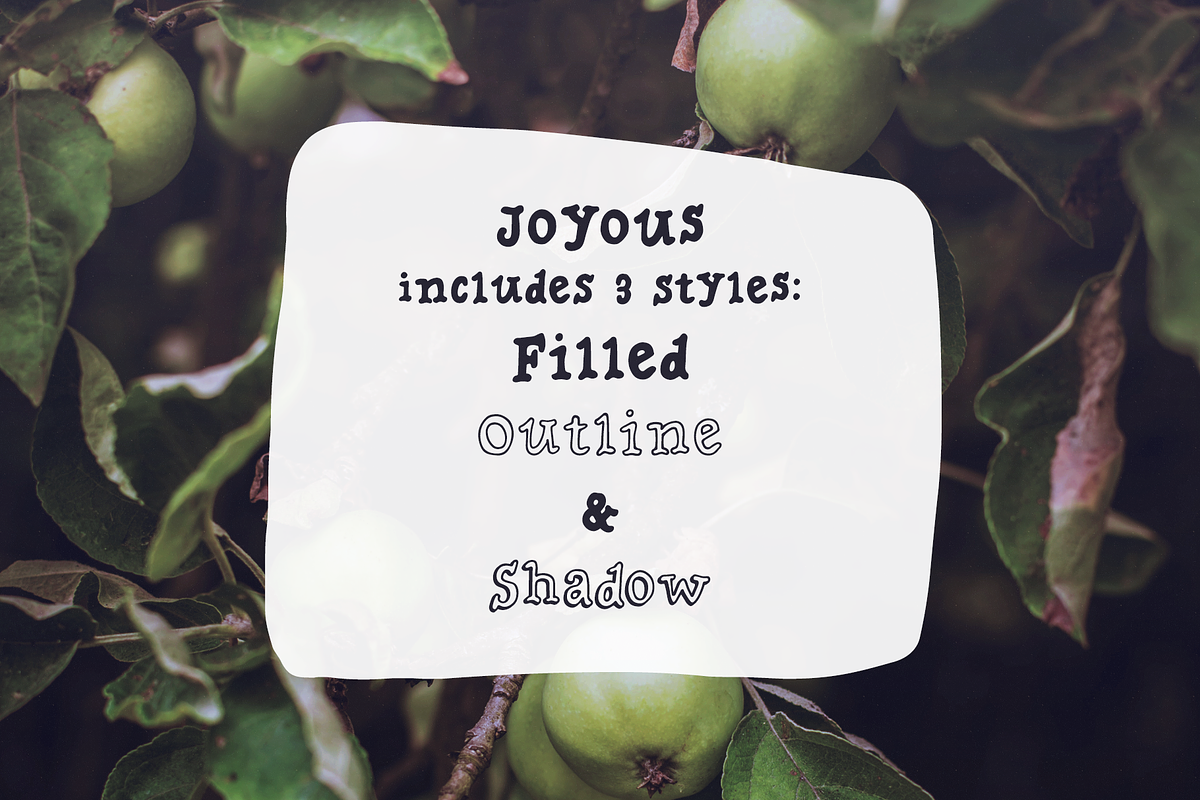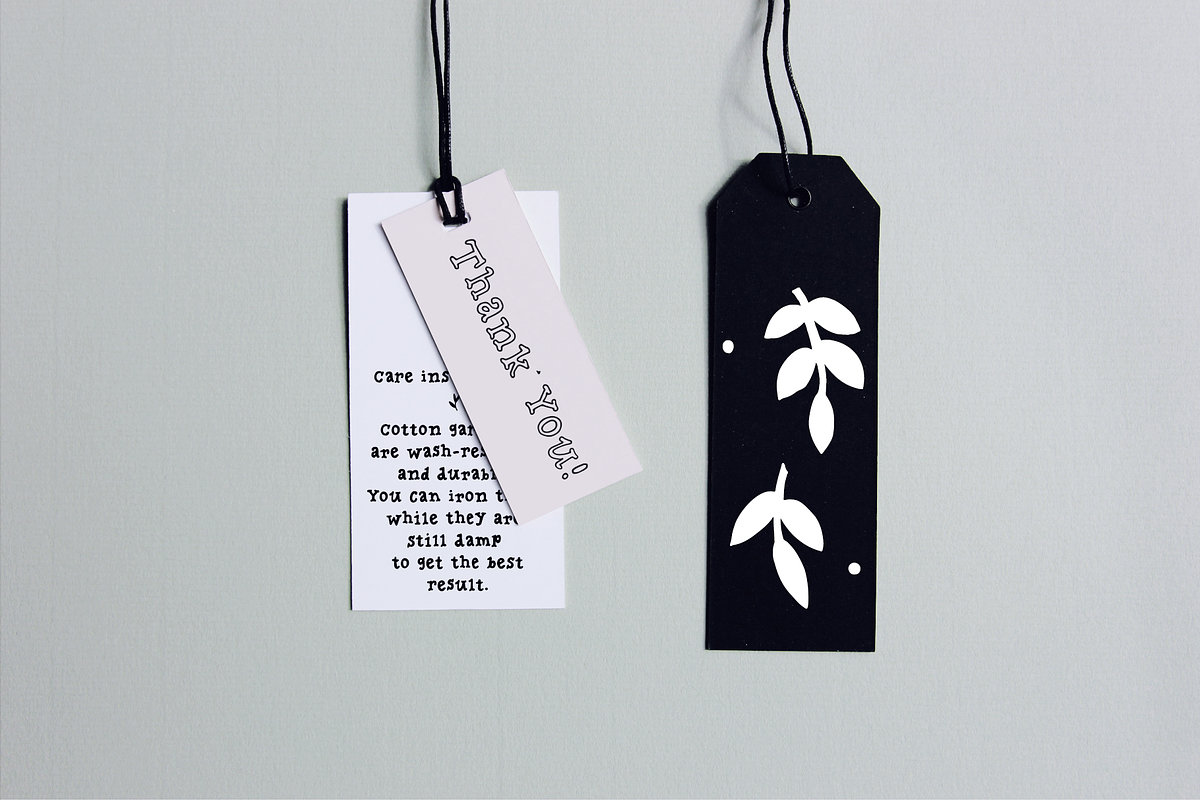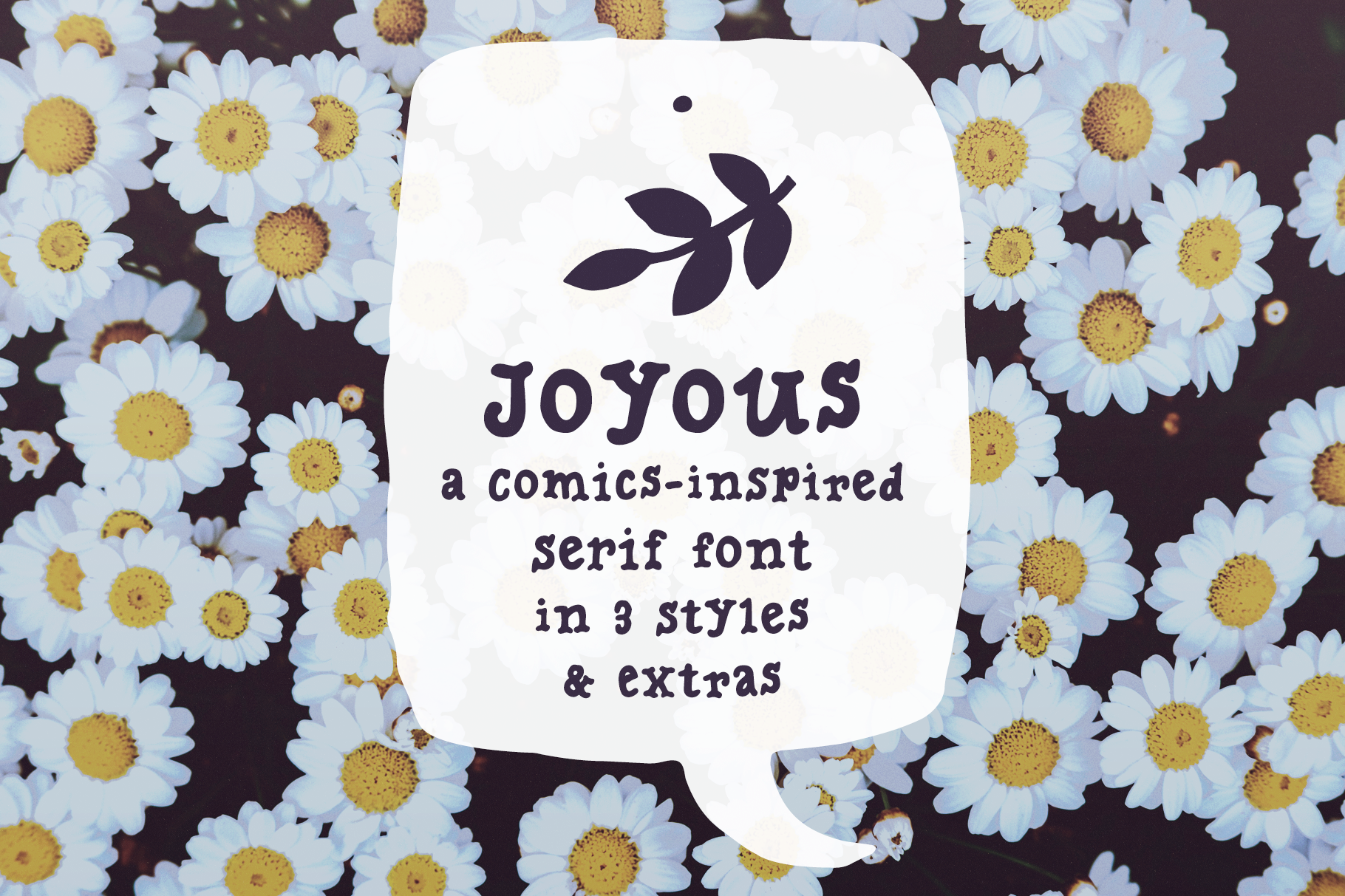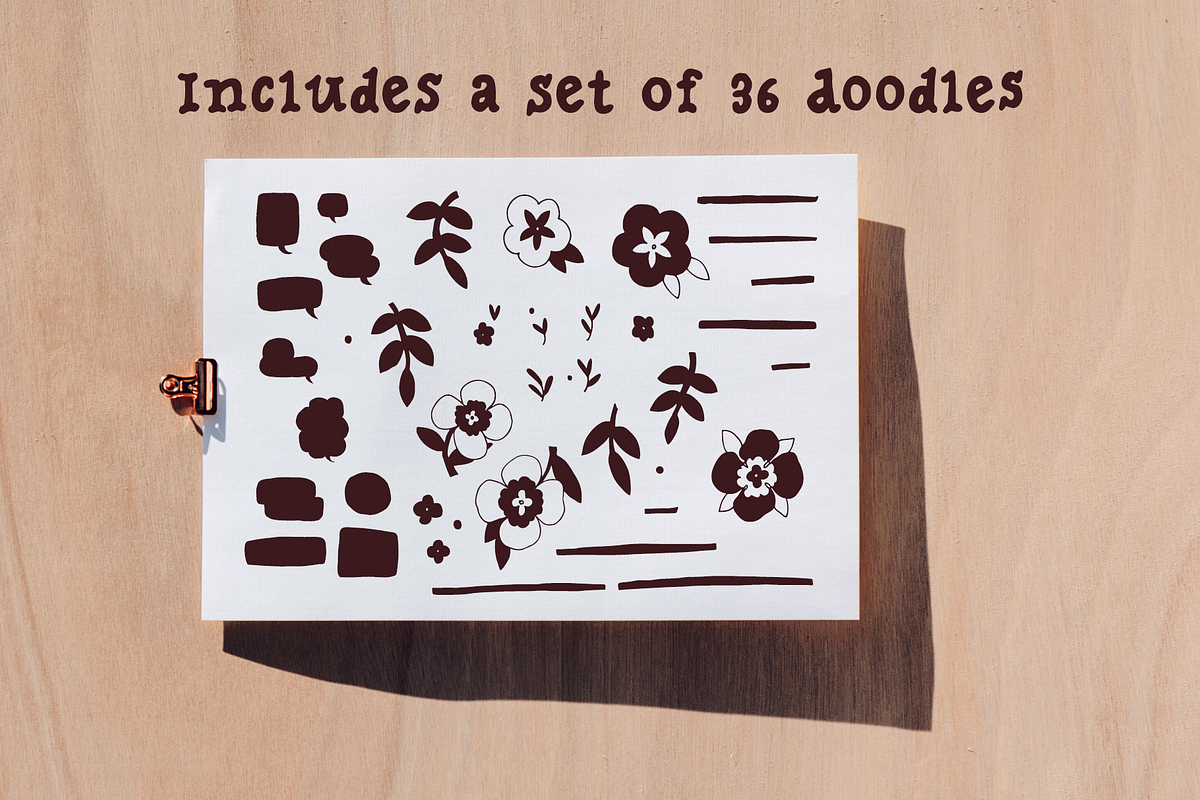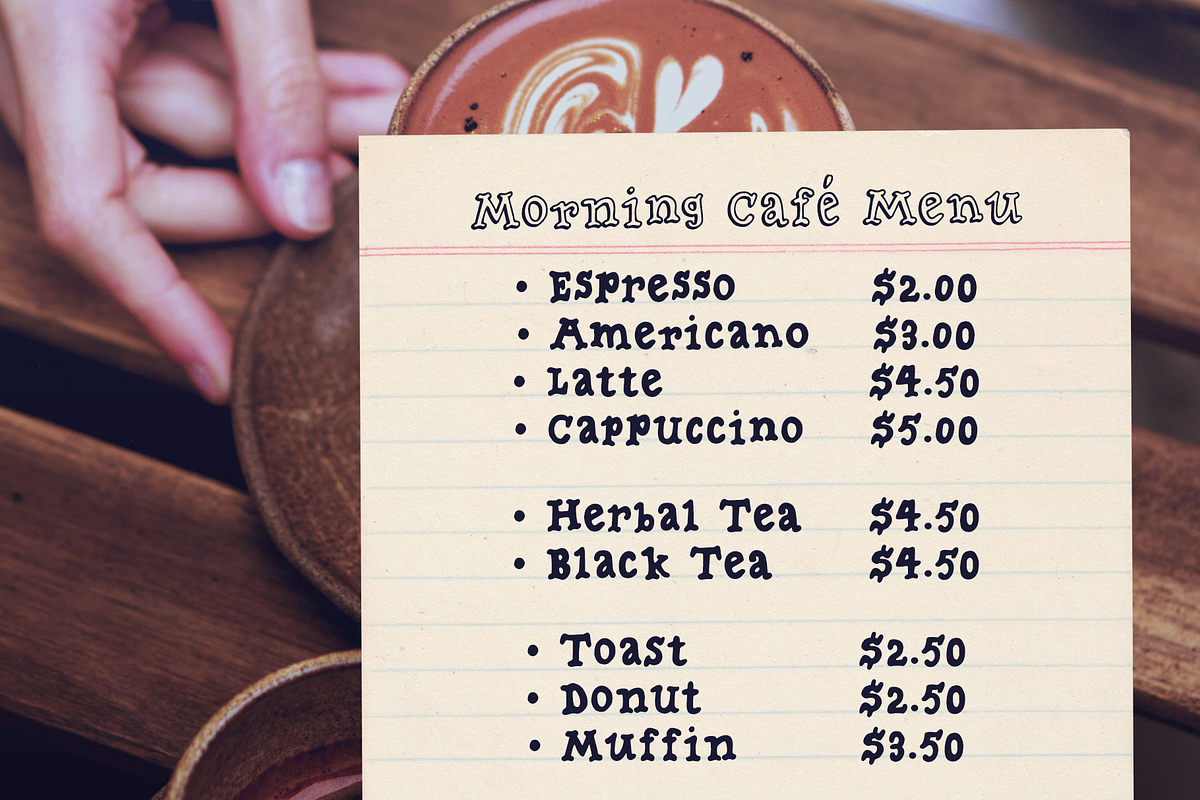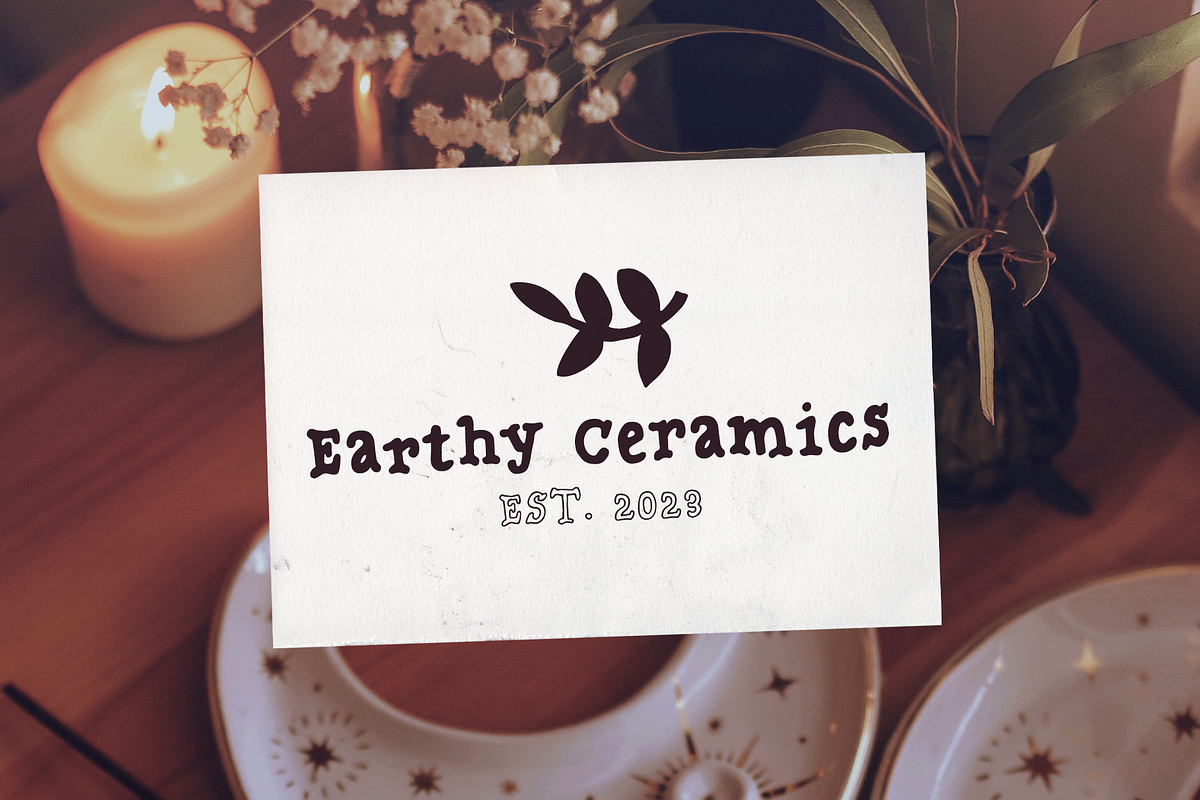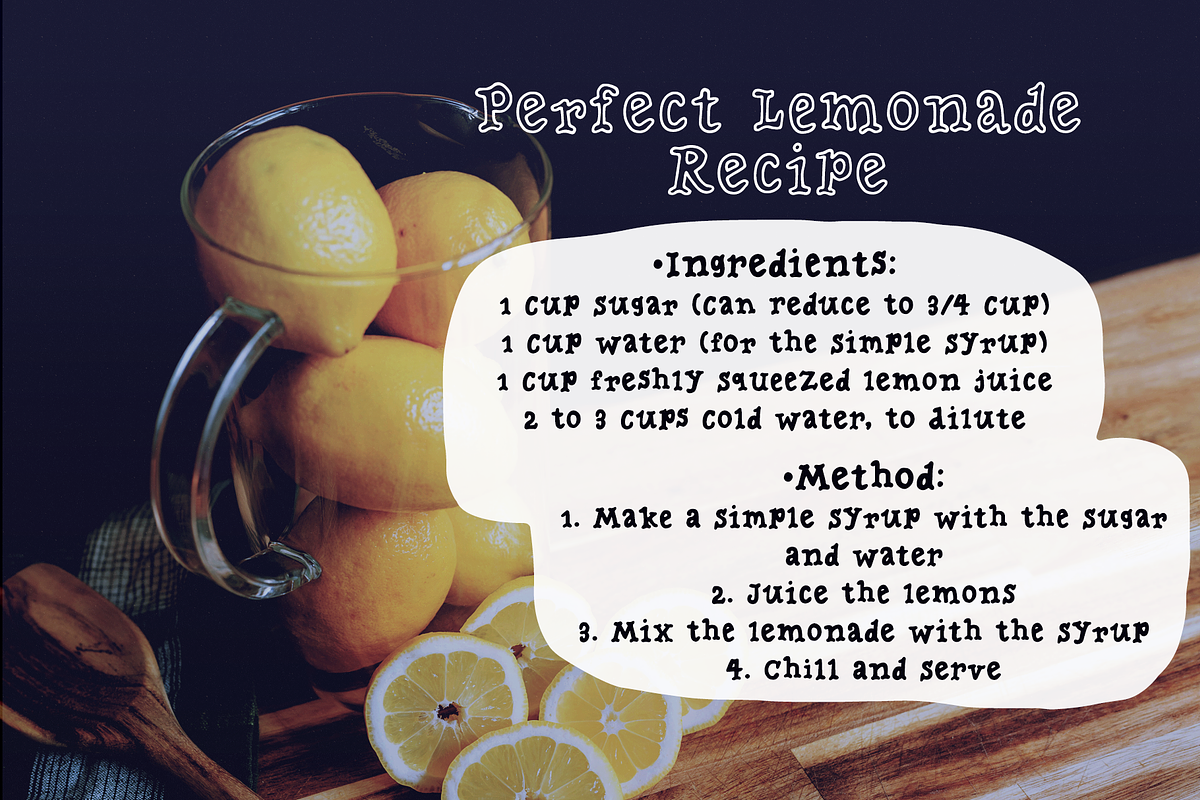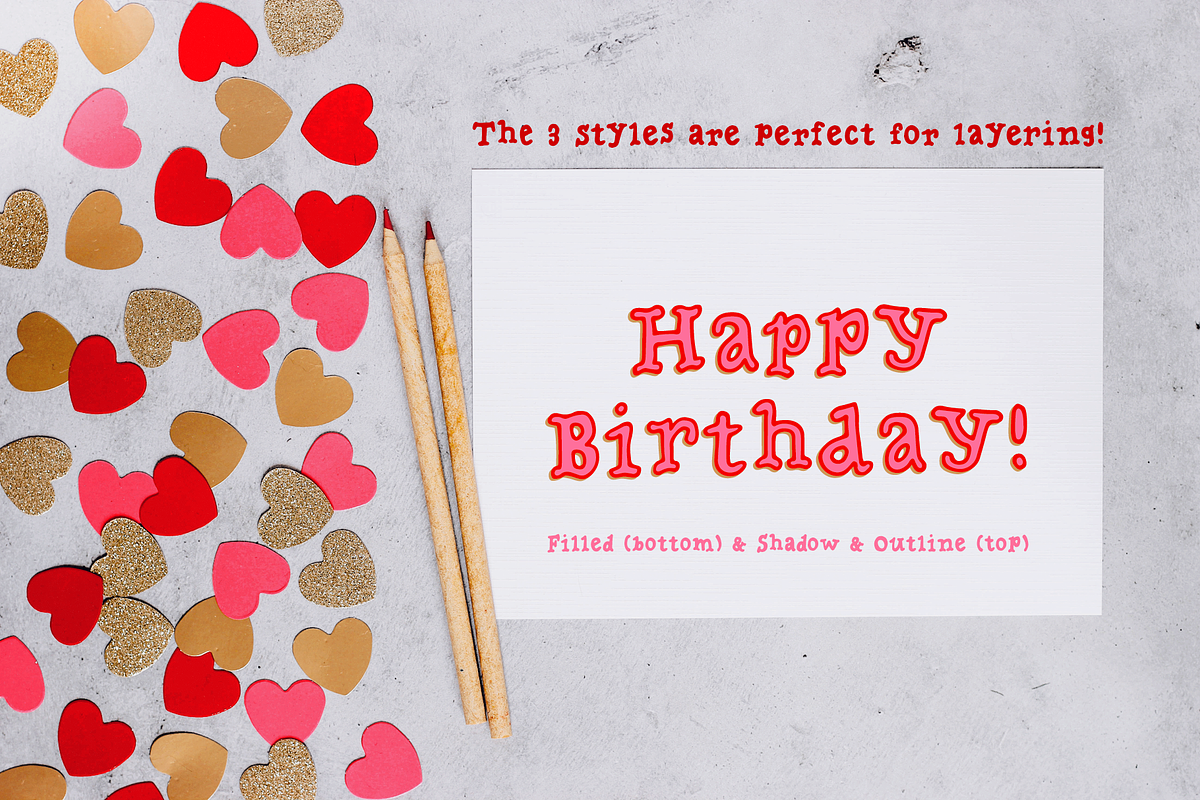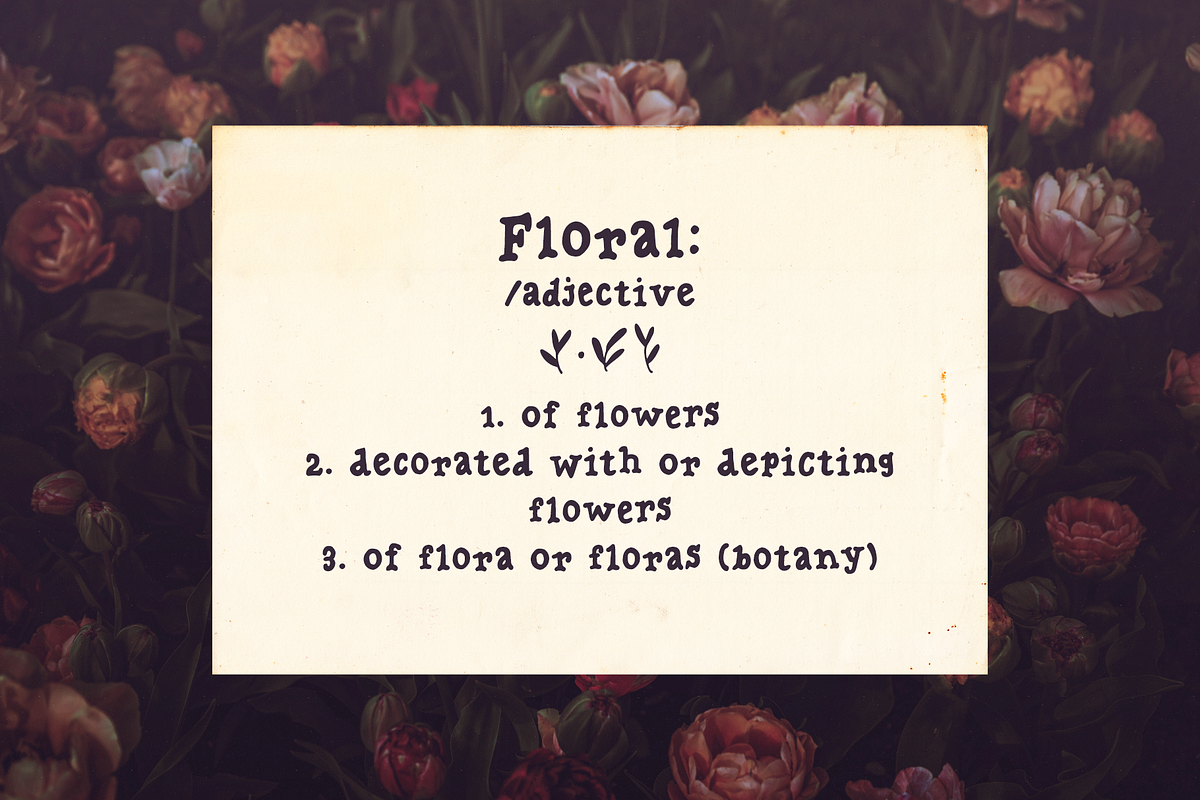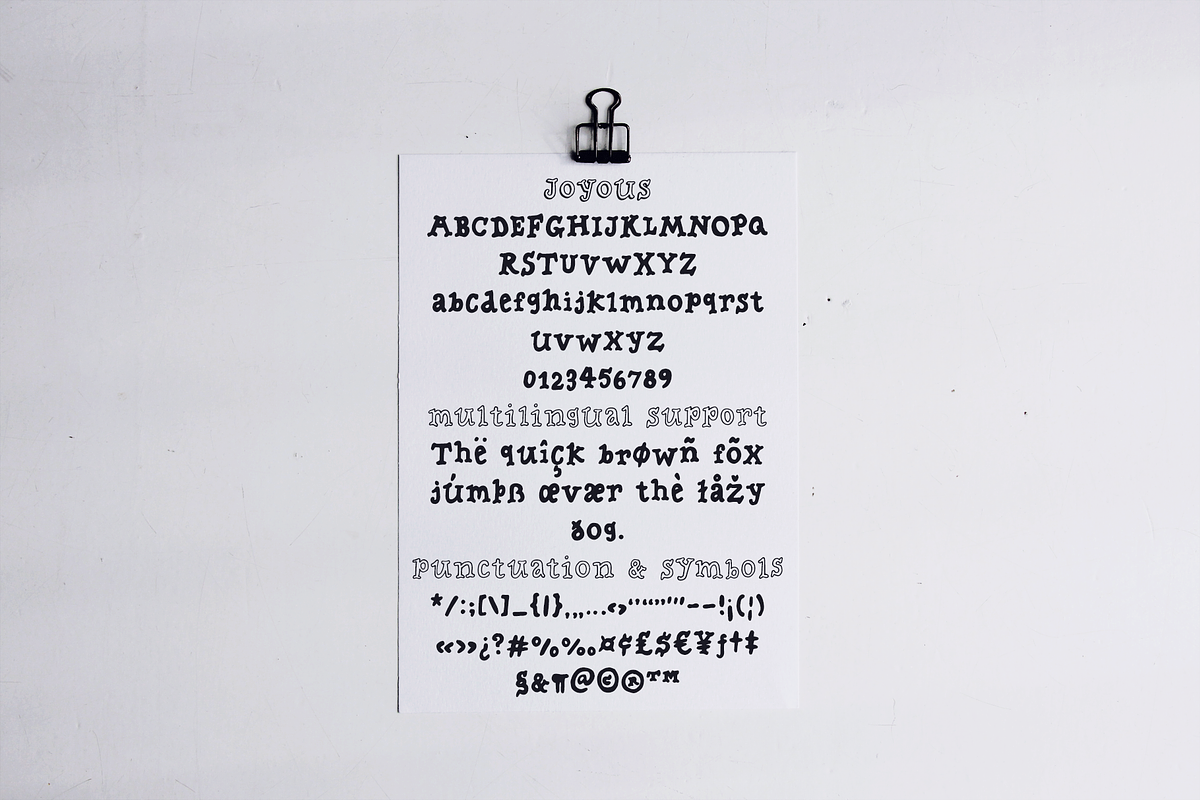
Joyous comics serif font
Joyous is a comics-inspired serif font that includes 3 styles: outline, filled and shadow and a set of complimentary extras. Perfect for any design that needs a bold font, such as logotypes, quotes and social media posts, website and magazine layouts, and poster designs.
Joyous includes:
- 3 serif fonts in filled, outline and shadow styles. The three font styles can be combined to create a layered look. In addition, each font includes 3 different options for each letter and number, accessible through contextual alternates (or the glyphs panel).
- 3 extras fonts with a set of 36 doodles in filled, outline and shadow styles.
Joyous is a casual font that is so fun to use in animations and designs with a handmade look.